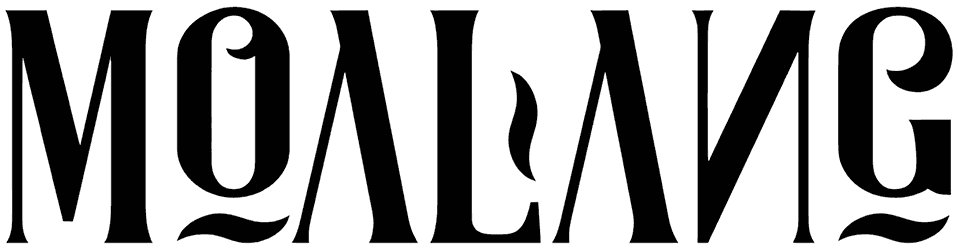
Swistblnk Moalang Melintang Font
If you like a twist of prehistoric writing and want to decorate your product packaging, headers, posters, and social media headlines like ancient Roman writing, Swistblnk Moalang Melintang is for you.
This classic and Victorian font pairs well with old styles, although it does not support lowercase letters and numbers. Even in modern projects, you can use the power of this serif font to create a sense of softness and elegance.